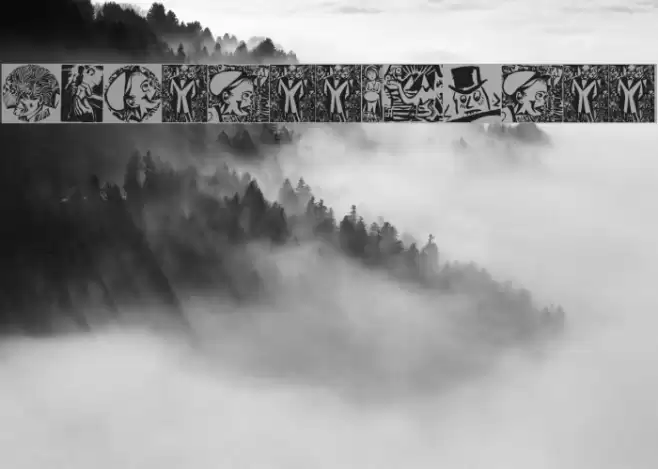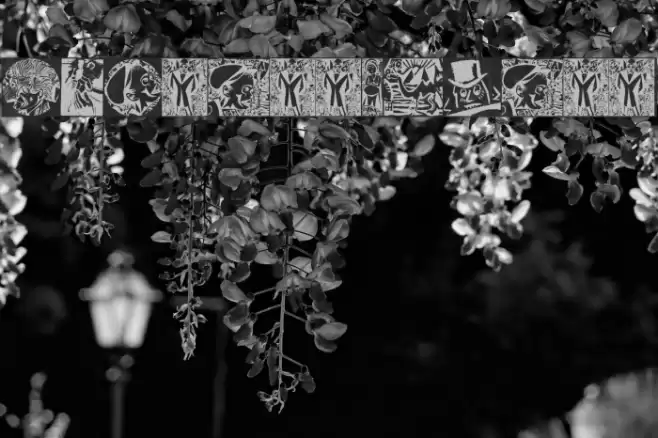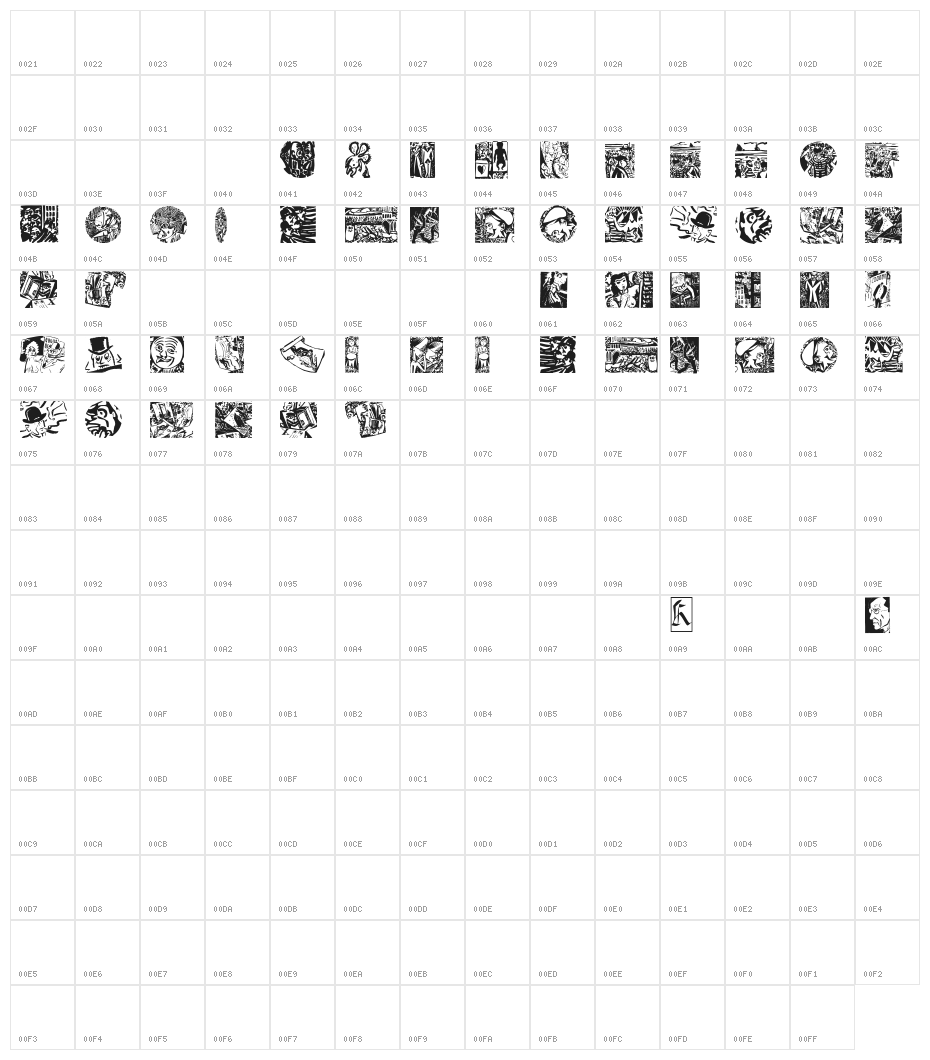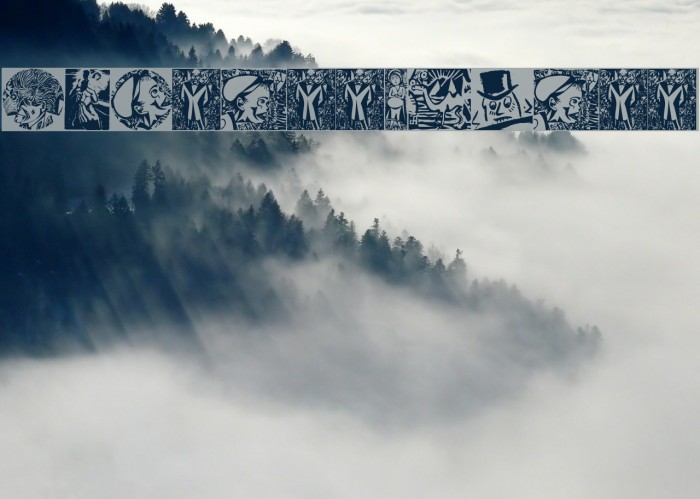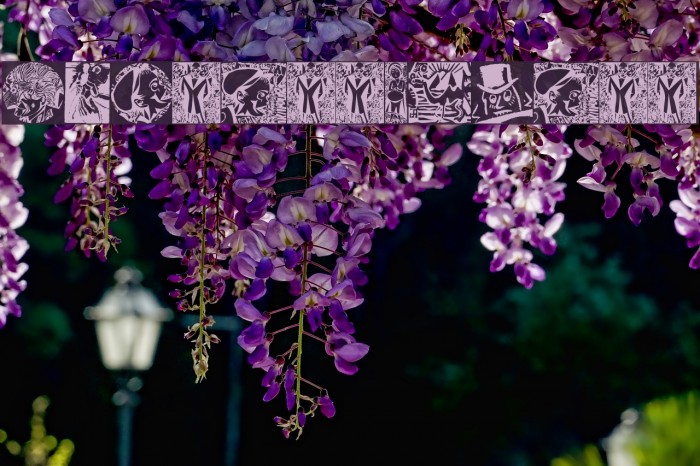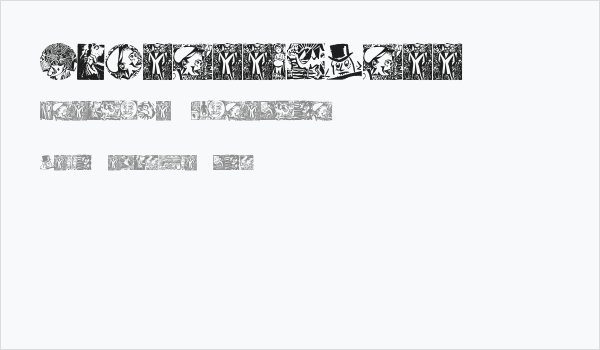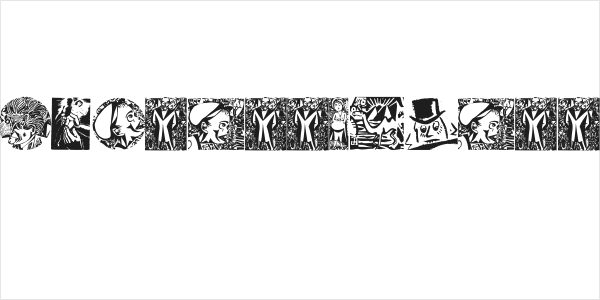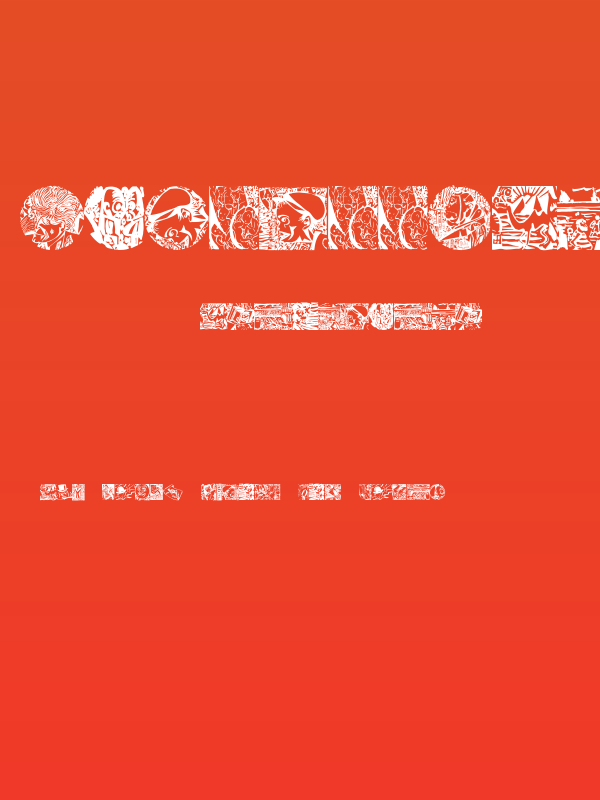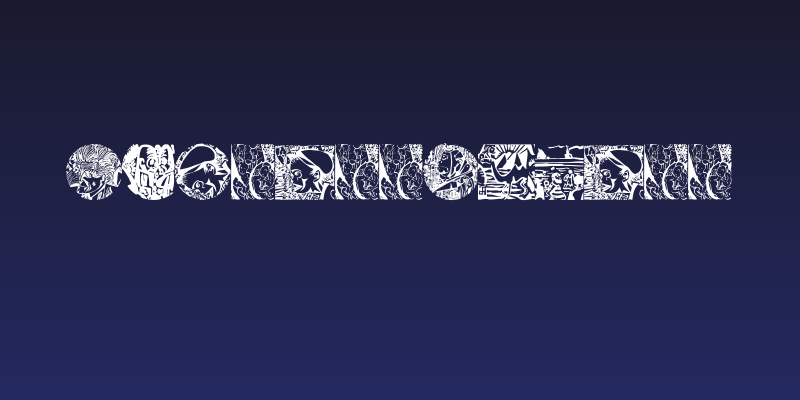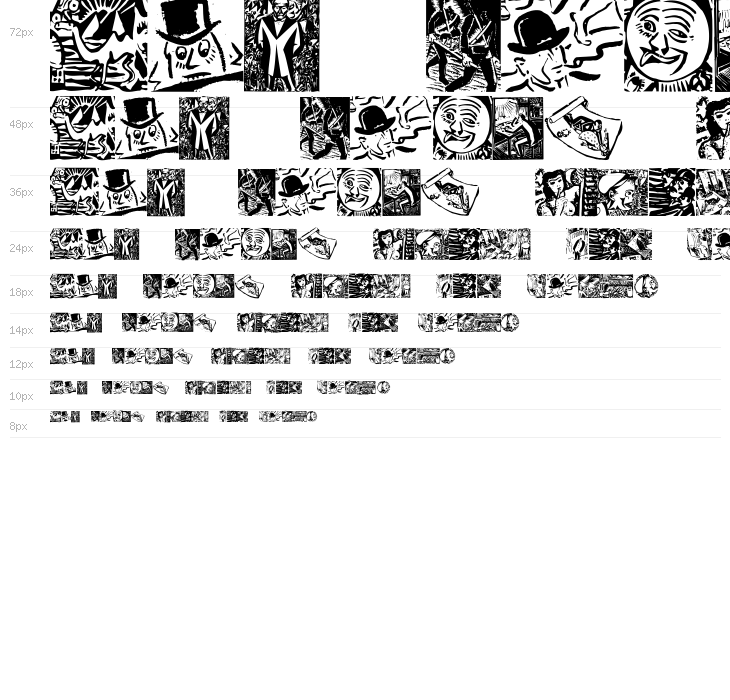
MasereelThree Font
MasereelThree Description
This font is a highly decorative and illustrative typeface, featuring intricate and detailed artwork within each character. Each letter and symbol is designed with unique, expressive illustrations that resemble woodcut or linocut art styles. The characters are filled with scenes or figures, creating a narrative or storytelling element within the typeface. This artistic approach makes it more of a visual art piece than a traditional font, offering a rich, textured appearance that is both bold and eye-catching. The font's intricate design suggests a handcrafted quality, making it suitable for projects that require a strong visual impact and an artistic touch.
A decorative, illustrative font with intricate, woodcut-style artwork in each character from Uncategorized fonts.
- Proposed Projects: Ideal for artistic projects, posters, book covers, or any design requiring a strong visual narrative.
- Use Case: Logos, Posters, Artistic projects